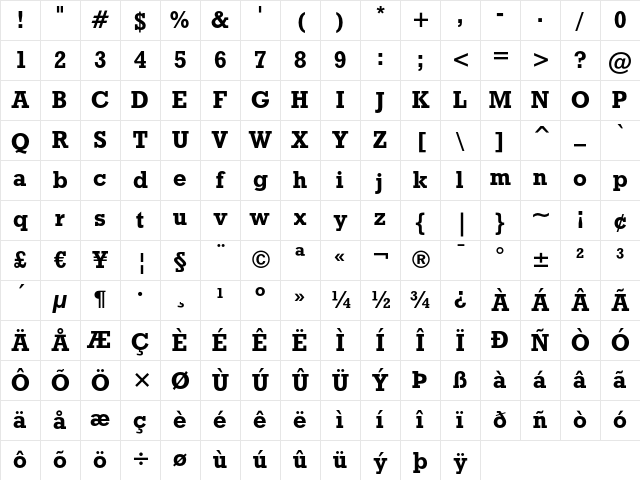
Geometric Slabserif 712 Bold
Geometric Slabserif 712 Family
Geometric Slabserif 712 Bold
Complete Geometric Slabserif 712 Bold glyph index. Displaying only characters natively supported by Geometric Slabserif 712 Bold font.
Design Context for Geometric Slabserif 712
Geometric Slabserif 712 features prominent, blocky serifs that give it a confident, grounded presence - equally at home in editorial settings and bold branding work. Its bold stroke weight gives it real presence on the page.
Pro Tip: Use Geometric Slabserif 712 for headlines and subheadings where its slab serifs can make an impression. It also holds up well in mid-size body copy thanks to its sturdy construction.